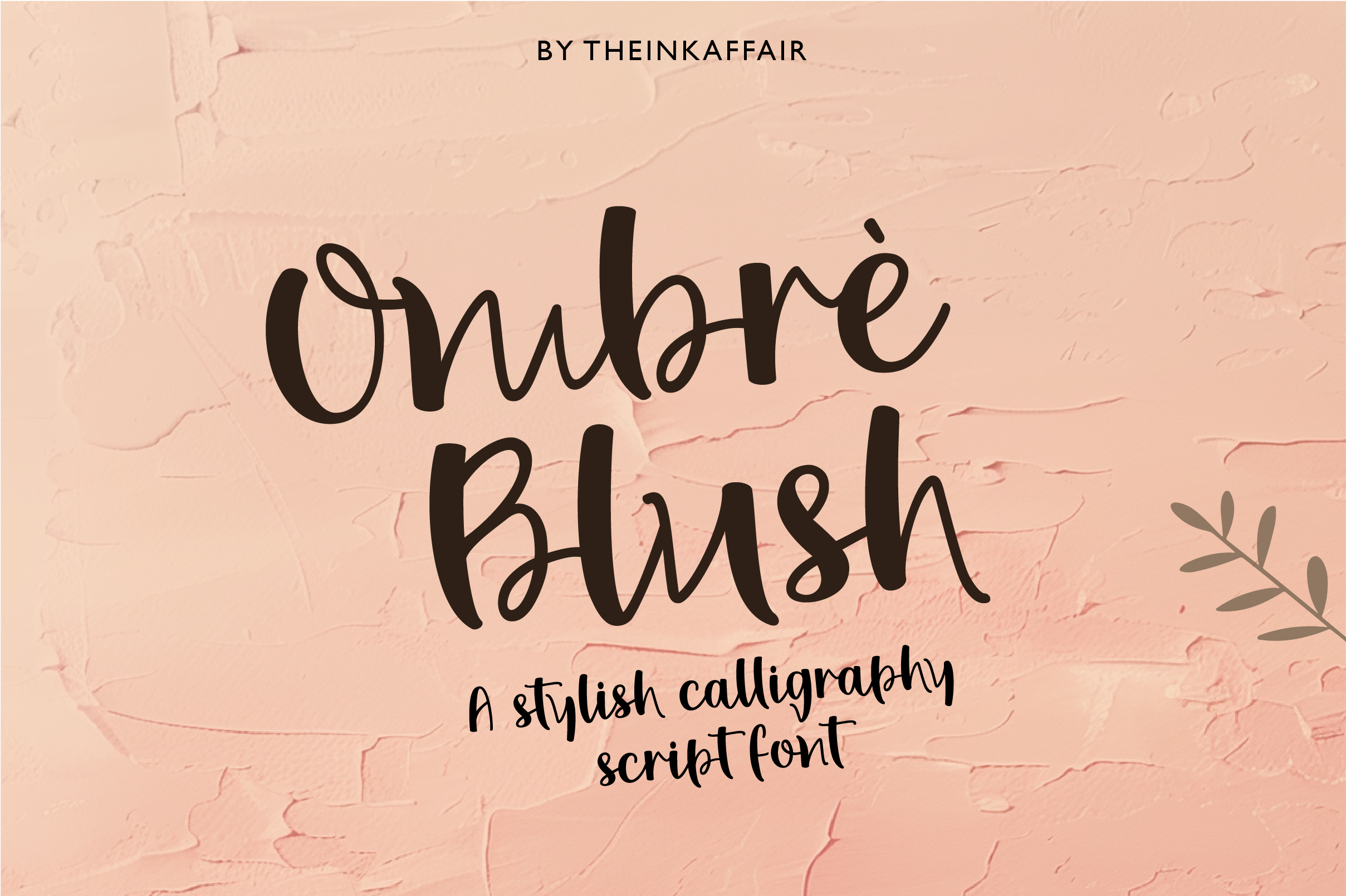
Ombre Blush Script Font
Welcome Ombre Blush Script, a fun and delicious modern calligraphy script font. Ombre Blush is perfect for all things design! From Wedding invitations, social media posts, to greeting cards, blogs, branding, logos, apparel design, typography, and so much more!